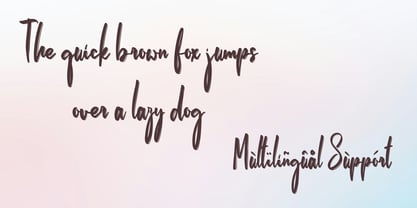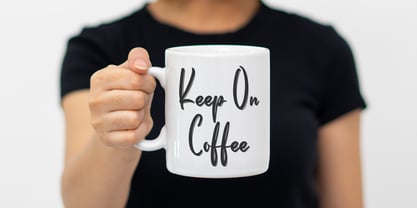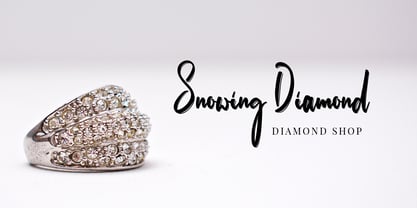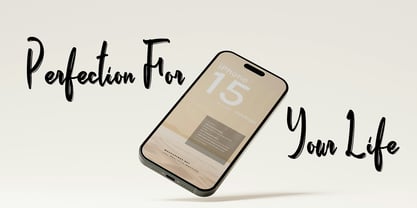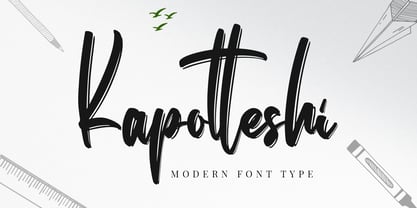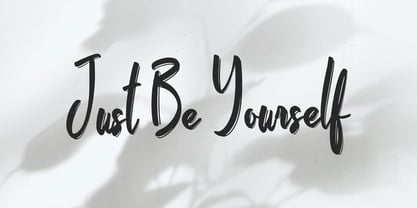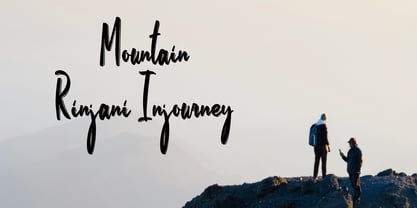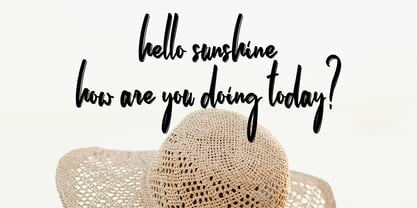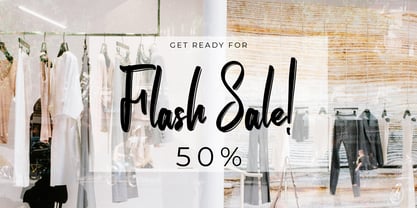
Kapotteshi
by Mega Type
The Kapotteshi Font Family was designed by M Akmal and published by Mega Type. Kapotteshi contains 1 styles.
Kapotteshi font is a bold and expressive script typeface that combines modern calligraphy with a touch of hand-drawn charm. Its fluid strokes and dramatic contrast between thick and thin lines give it a dynamic presence, making each letter feel lively and intentional.
Kapotteshi is ideal for projects that require a personal and creative touch. It works beautifully for branding, logo design, wedding invitations, social media graphics, packaging, and modern editorial layouts. Kapotteshi bold yet elegant style makes it especially suitable for projects that aim to be both eye-catching and sophisticated, particularly in fashion, lifestyle, and beauty-related designs.